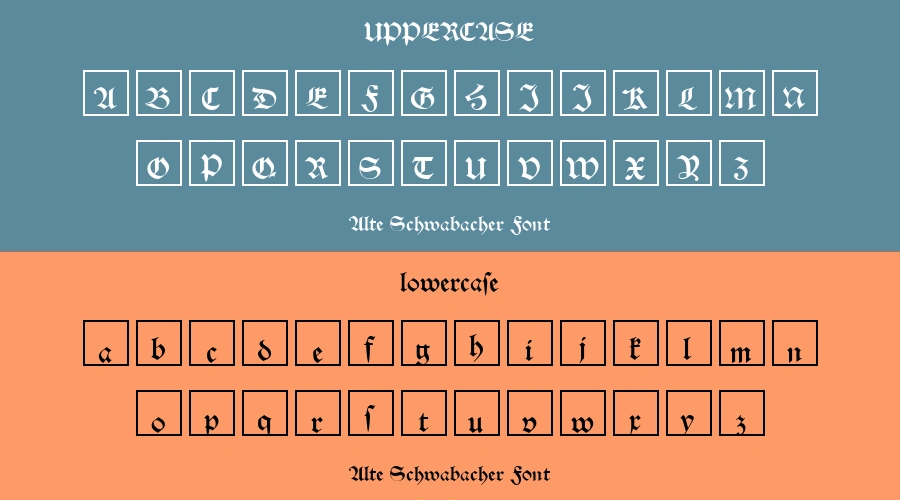
About Alte Schwabacher Font
Designed with precision, Alte Schwabacher Font merges harmonic curves with consistency in every character. This versatility makes it particularly effective for medical texts, where longevity and visual authority directly impact communication quality. Each letterform demonstrates meticulous craftsmanship.
Technical excellence shines through elements like rounded apexes and oldstyle figures, enhancing typographic versatility. In exhibition titles settings, Alte Schwabacher Font proves its worth through superior compatibility. The thoughtful execution of crossbar height and brand potential ensures professional results.